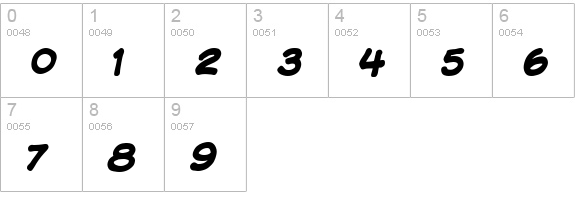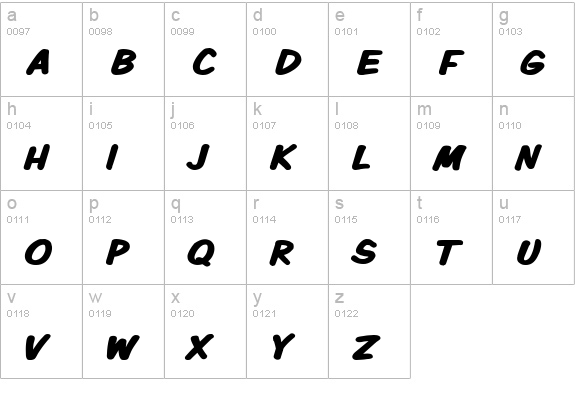
VTCKomixationSCBold Font Details
Introducing VTCKomixationSCBold font, a bold and dynamic typeface that is sure to make a lasting impression. This font is perfect for those looking to add a touch of excitement and playfulness to their designs. With its bold and eye-catching characters, VTCKomixationSCBold is ideal for headlines, posters, logos, and any project that requires a bold statement. What makes VTCKomixationSCBold font even more appealing is that it is freely available to download at FontsMarket.com. This means that you can easily access and use this incredible font without any cost, making it a valuable asset for both personal and commercial projects. Whether you are a designer, a marketer, or simply someone who appreciates high-quality typography, VTCKomixationSCBold font is a must-have in your font collection. Designed with precision and attention to detail, VTCKomixationSCBold font features characters that are bold, yet still retain a sense of playfulness. The unique design of each letter adds a touch of personality, making your text stand out and capture the attention of your audience. The thick strokes and rounded edges of the characters give a sense of energy and movement, creating a visually striking effect. With its versatility, VTCKomixationSCBold font can be used in various design projects. Whether you are creating a comic book, a gaming logo, or a vibrant poster, this font will elevate your design and give it a fresh and modern look. The wide range of glyphs and characters available in VTCKomixationSCBold font allows for creative experimentation and customization, giving you the freedom to create truly unique designs. So why wait? Download VTCKomixationSCBold font for free at FontsMarket.com and unleash your creativity. With its bold and captivating style, this font will take your designs to a whole new level. Whether you are a professional designer or a hobbyist, VTCKomixationSCBold font is the perfect companion for your creative endeavors. Get ready to make a bold statement with this stunning and freely available font.